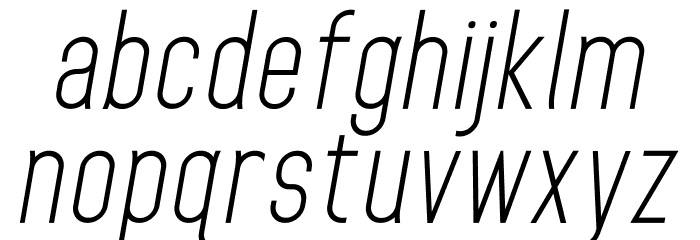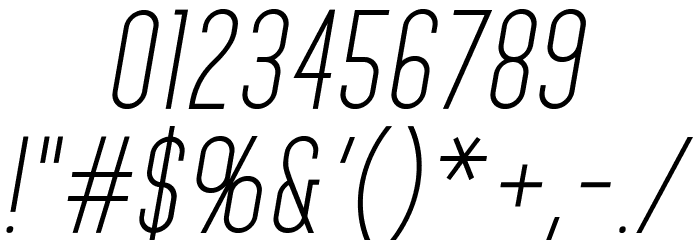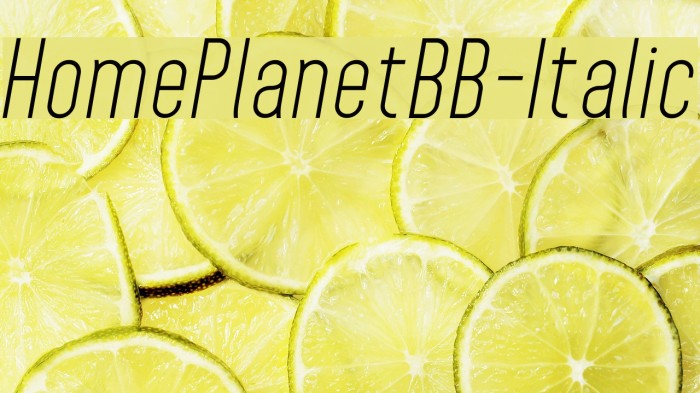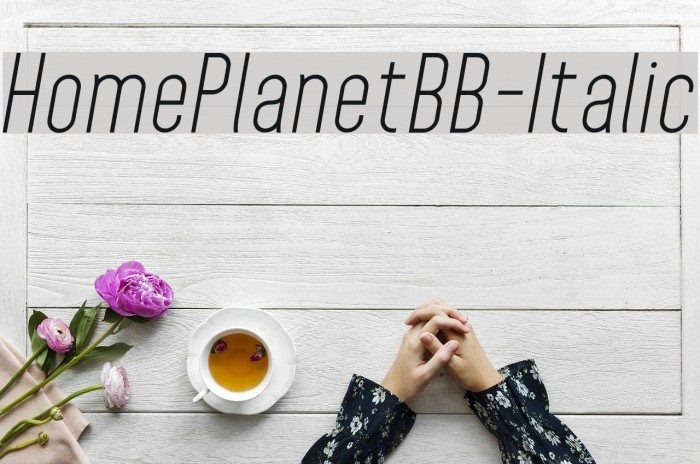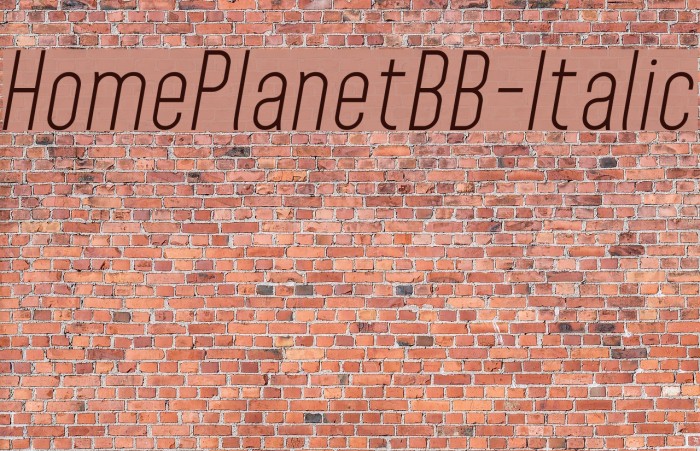
HomePlanetBB-Italic Font
This font features a sleek and modern design with a distinct italic slant, giving it a dynamic and forward-moving appearance. The characters are tall and narrow, contributing to a condensed look that maximizes space efficiency. The strokes are consistent in weight, providing a uniform and clean aesthetic. The font includes a full set of uppercase and lowercase letters, numerals, and a variety of special characters, making it versatile for various applications. Its minimalistic style is complemented by a slight curvature in certain letters, adding a touch of elegance without compromising readability.
A modern, italic, and condensed font with a sleek design.
- Proposed Projects: Ideal for branding, editorial design, and modern web interfaces.